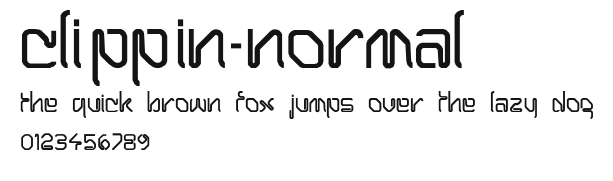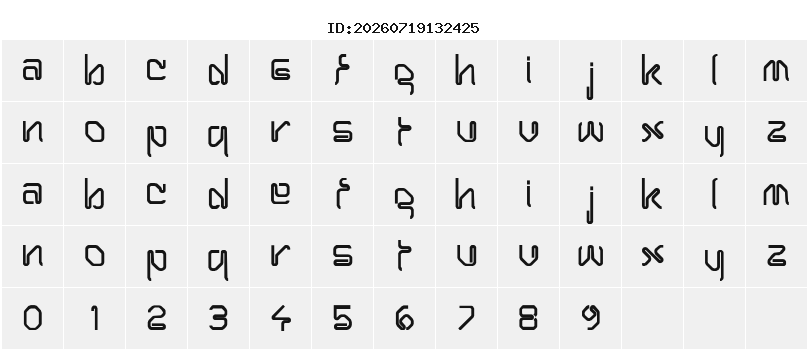
• Font Name: Clippin-Normal
• Full Font Name: Clippin-Normal
• PostScript Name: Clippin-Normal
About Clippin-Normal.ttf
Clippin-Normal.ttf is a modern, elegant sans-serif font designed for ultimate readability and visual harmony. Perfect for branding, headlines, web design, and print materials.